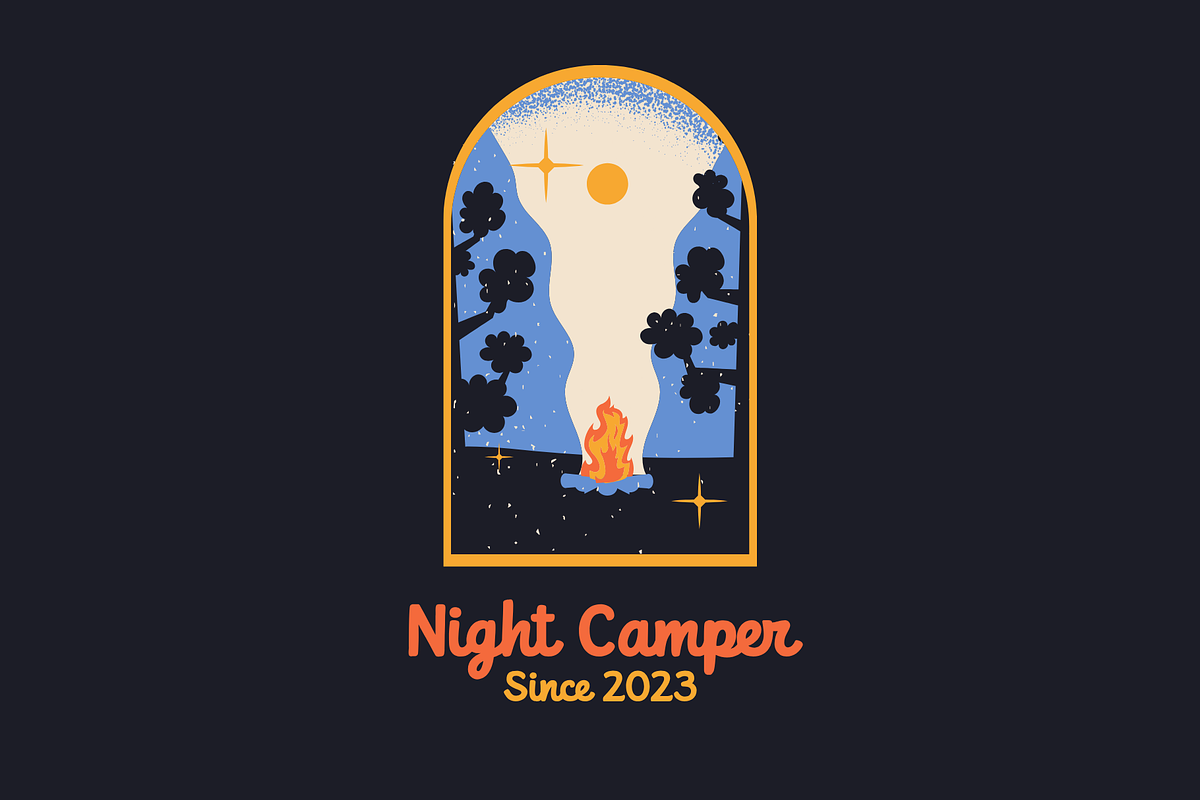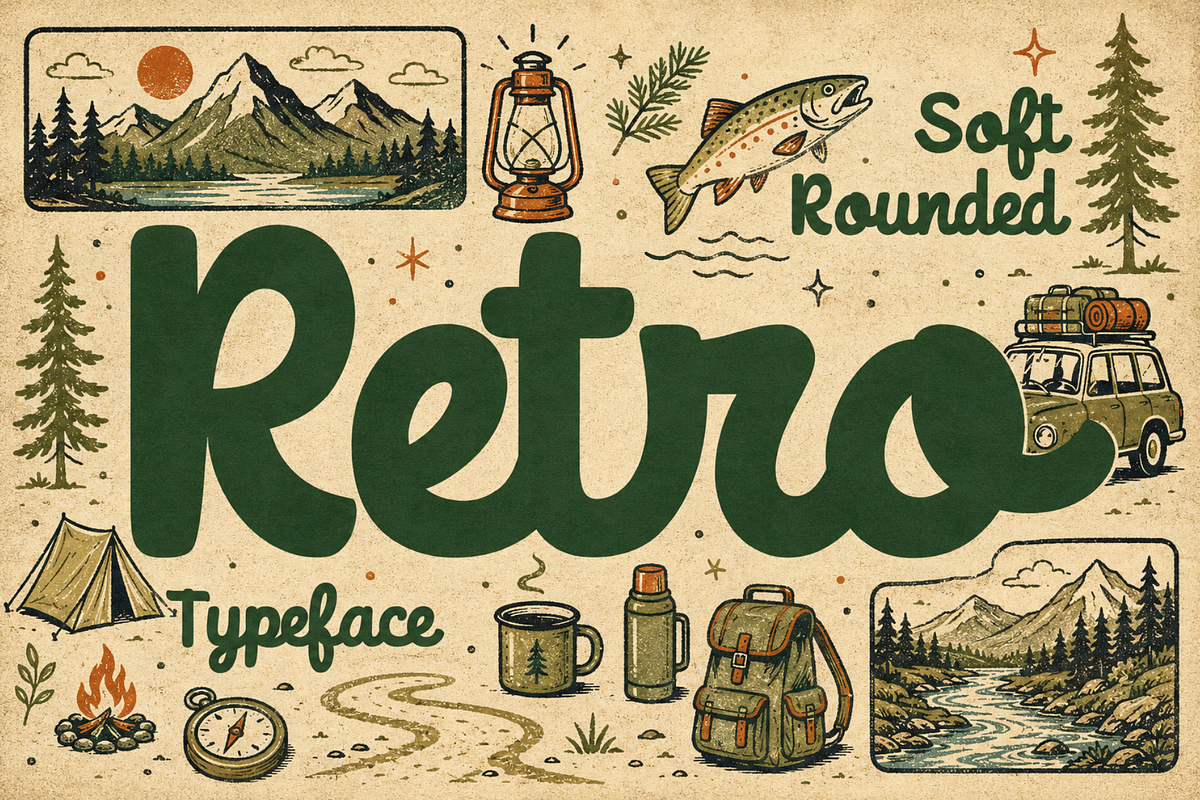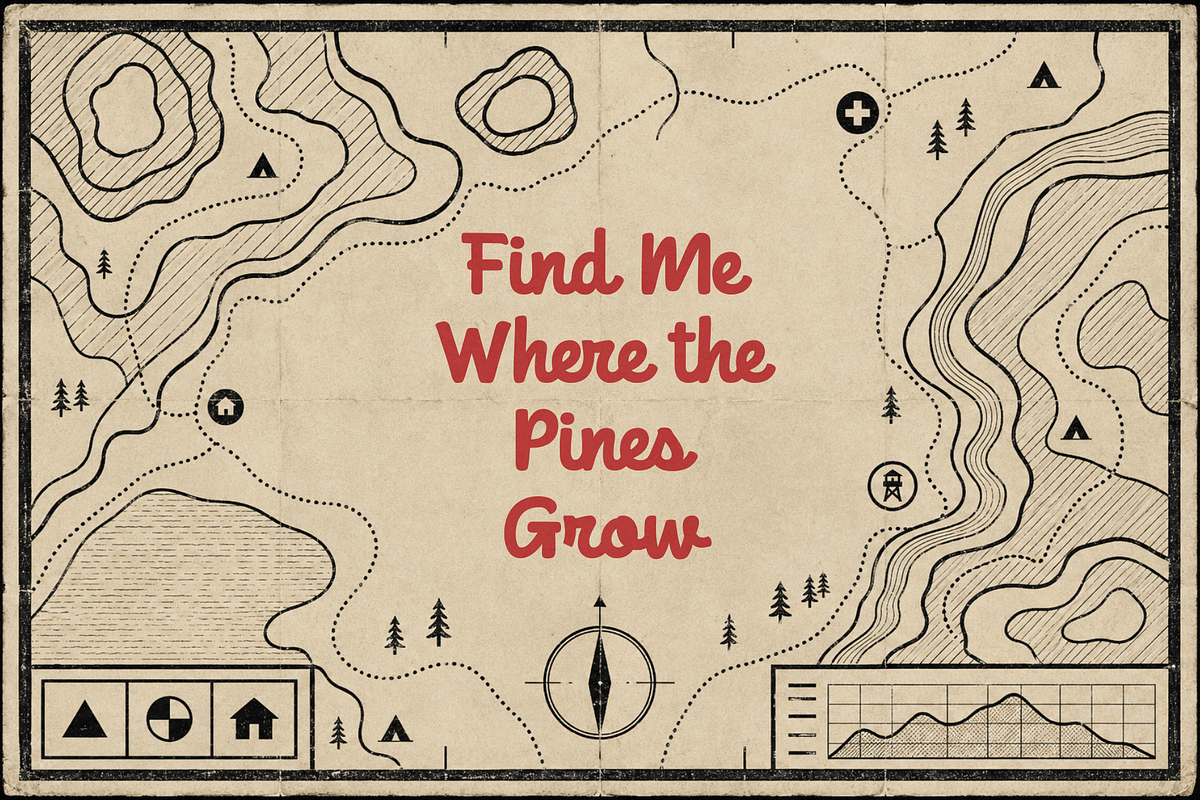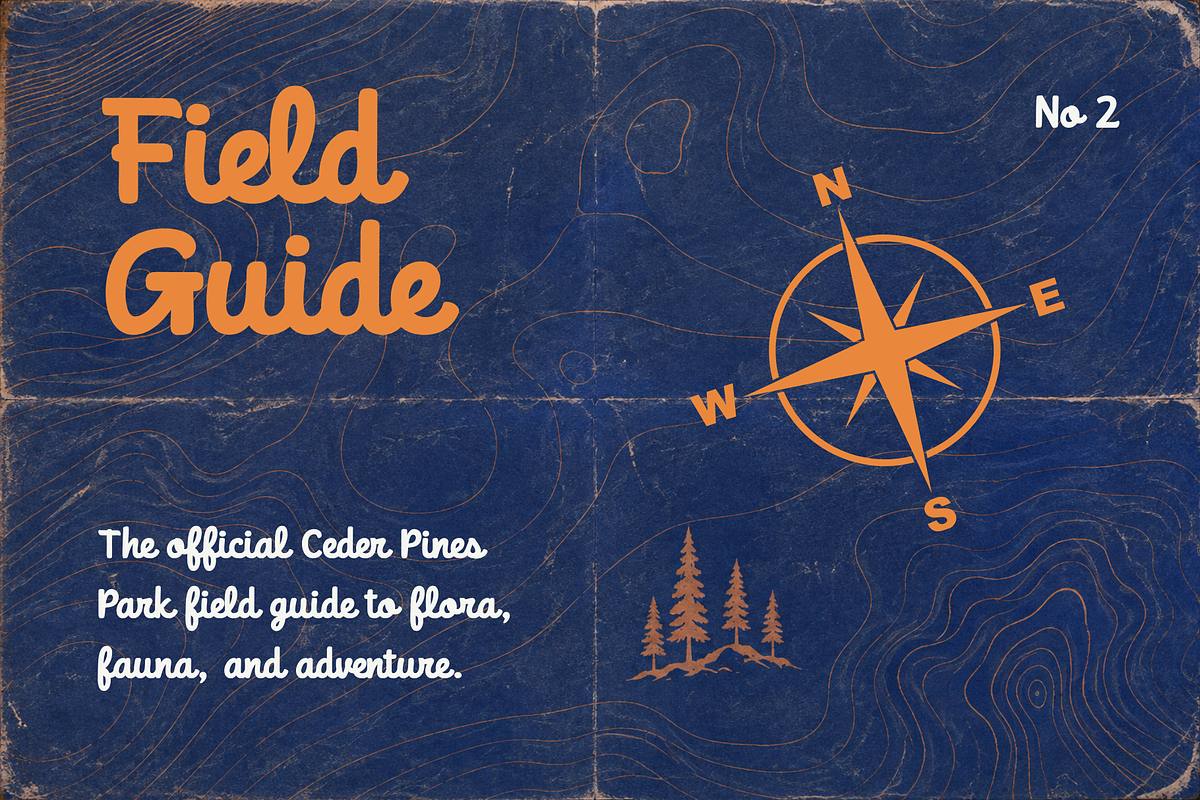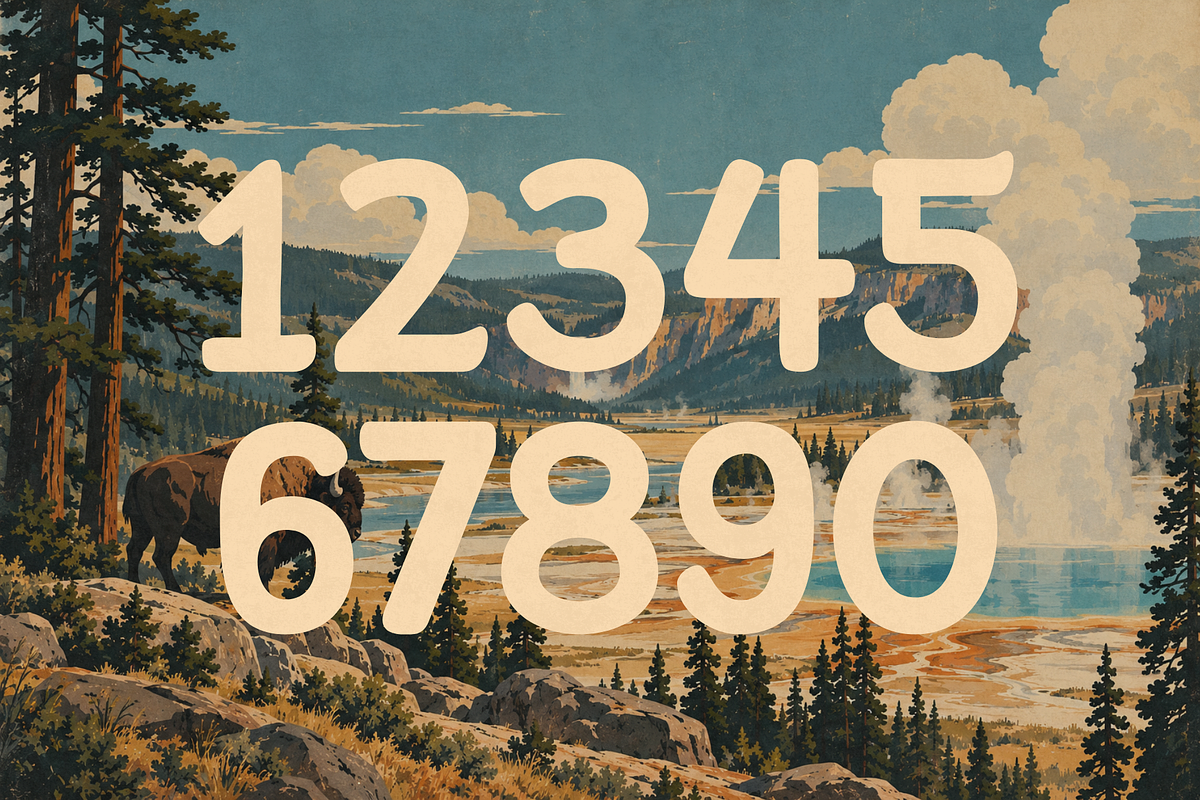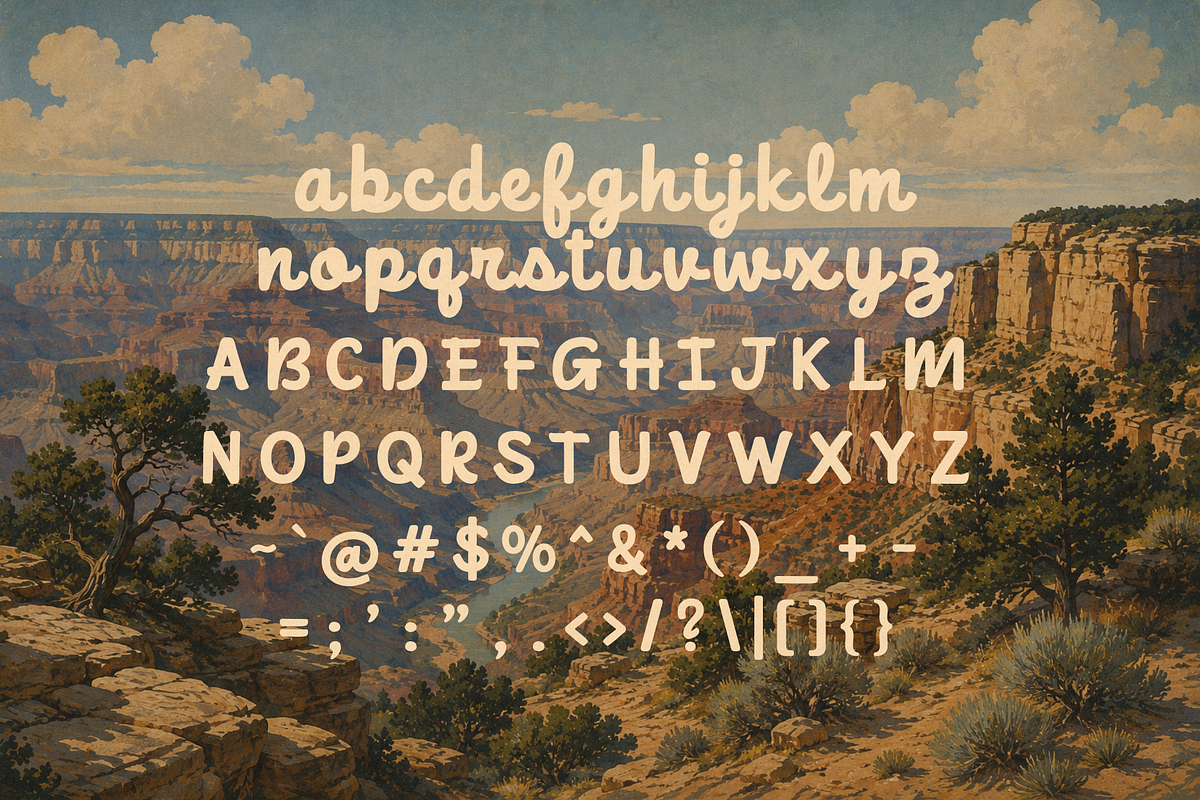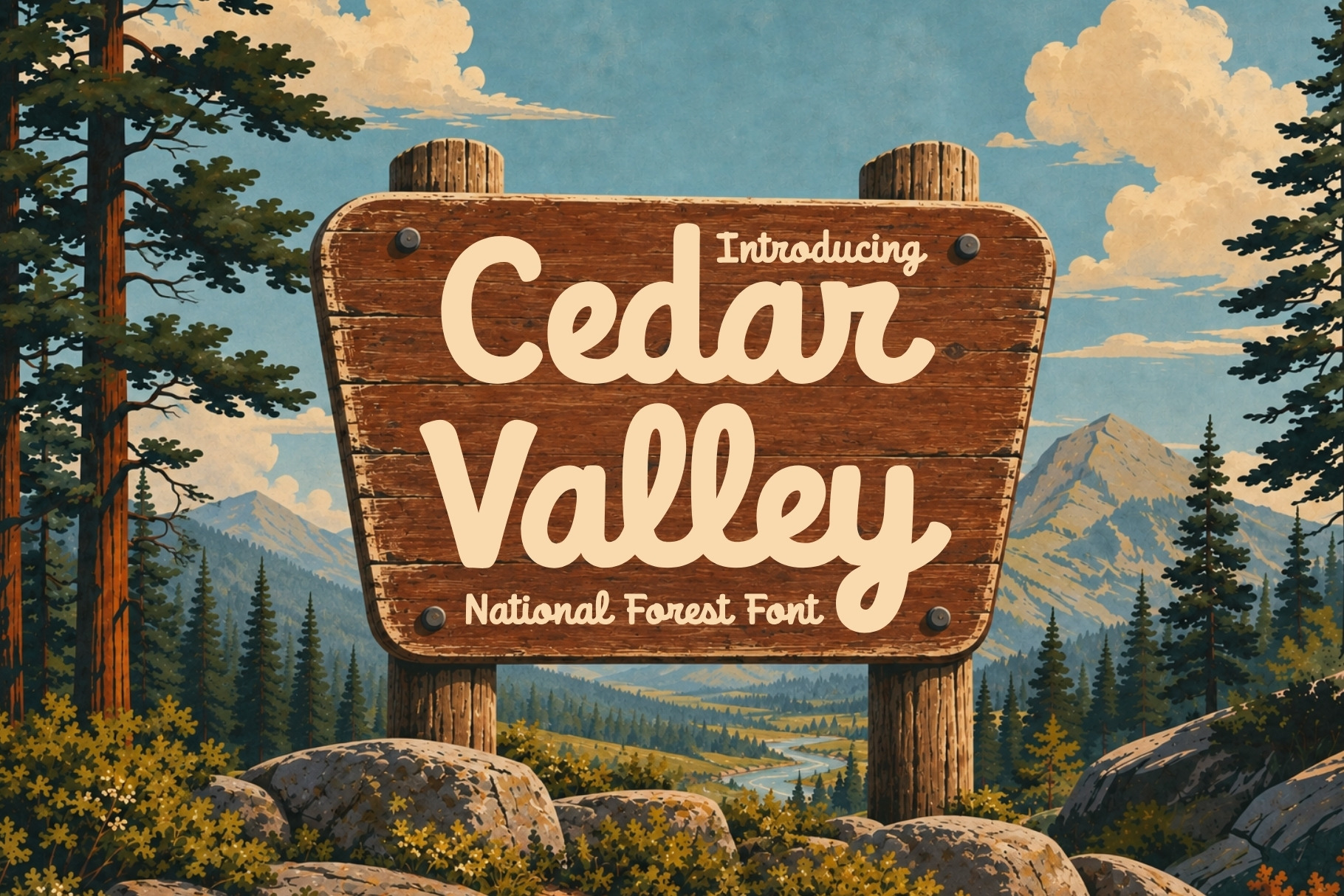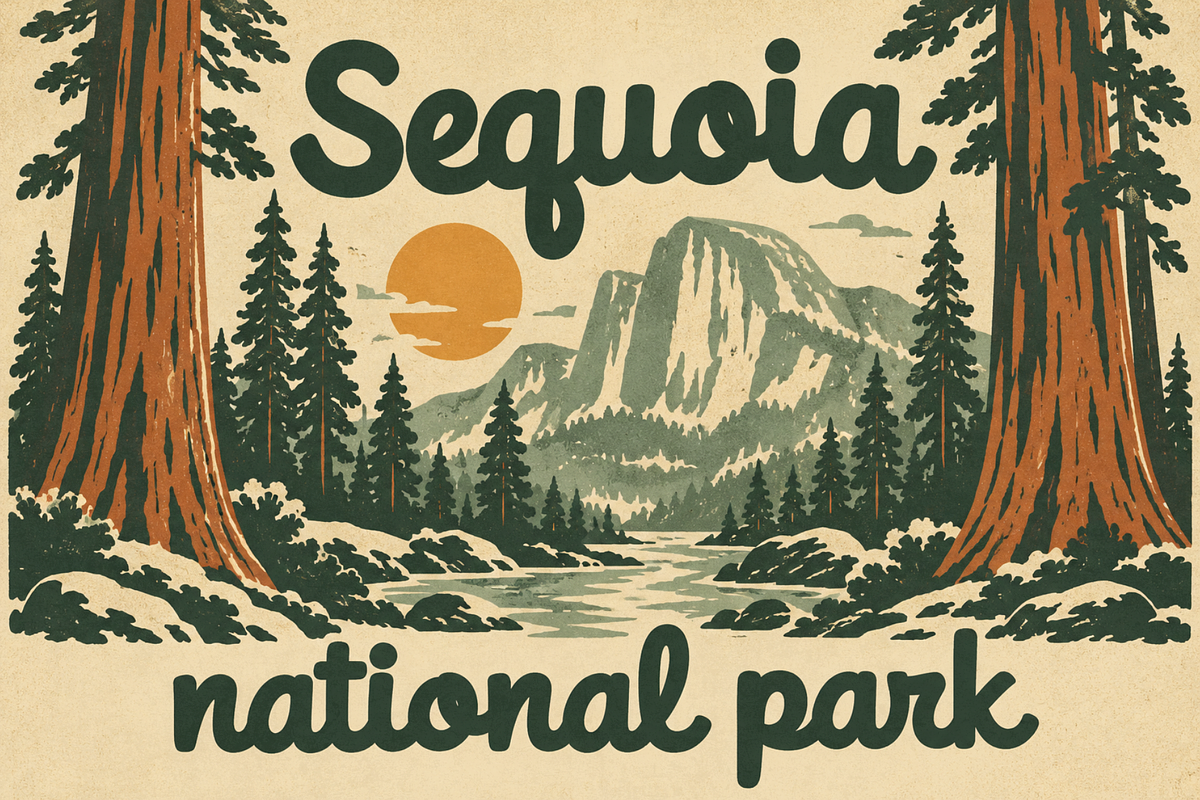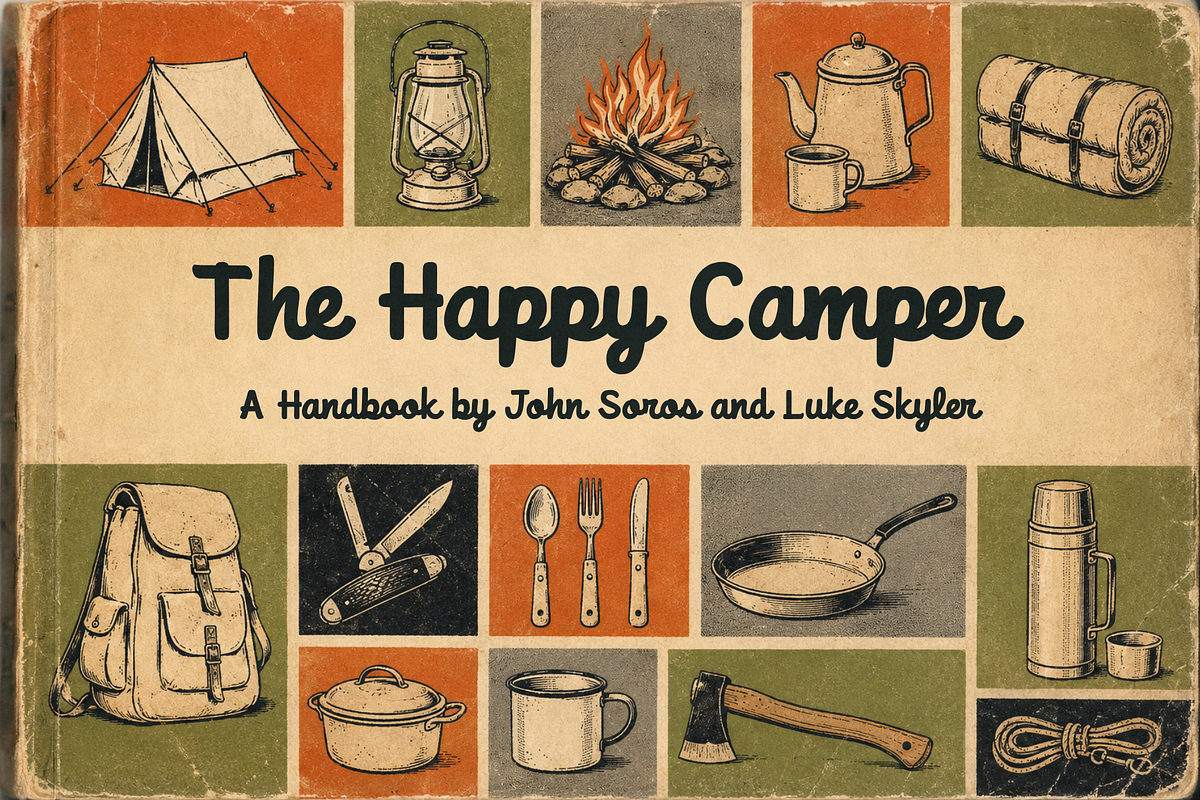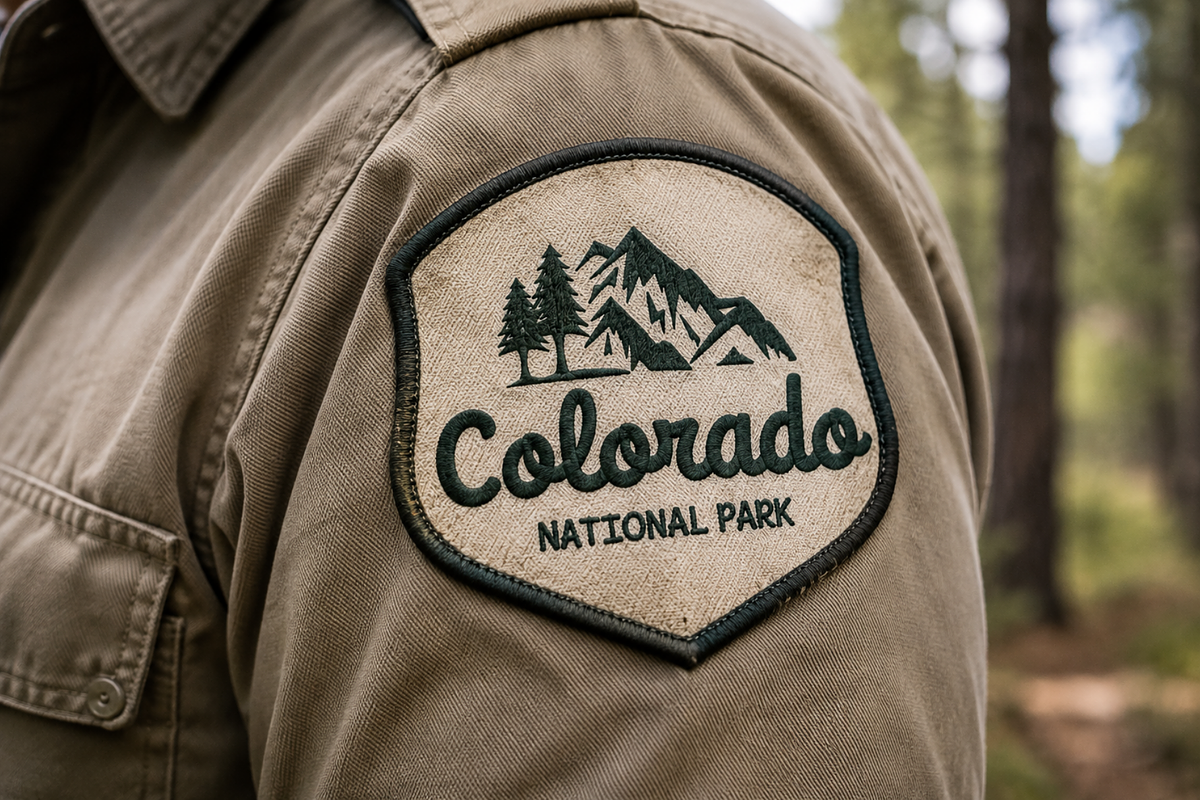
Cedar Valley - National Park Font
Meet Ceder Valley, a soft, rounded retro typeface inspired by the timeless signage of America’s national parks, forests, campgrounds, and scenic roadside destinations.
Designed to capture the nostalgic character of vintage National Park Service signs, Ceder Valley brings that familiar outdoorsy warmth into a versatile digital font. Its gently rounded shapes, quirky proportions, and subtle handmade imperfections give it an authentic retro personality that feels approachable, adventurous, and full of charm.
Rather than looking overly polished or mechanical, Ceder Valley embraces the character of old painted signs, trail markers, park maps, campground graphics, souvenir patches, and mid-century outdoor branding. The result is a typeface that instantly evokes memories of road trips, mountain lodges, forest cabins, campfires, postcards, and long summer days spent exploring the outdoors.
Ceder Valley is perfect for national park-inspired branding, camping graphics, outdoor apparel, travel posters, lodge logos, campground signs, stickers, patches, badges, packaging, postcards, adventure brands, merchandise, editorial layouts, and retro-inspired graphic design.
Its soft, friendly construction makes it especially effective for bold headlines and logos, while its nostalgic style pairs beautifully with illustrated landscapes, mountains, pine trees, vintage badges, wildlife artwork, and classic travel-poster aesthetics.
Whether you're designing a fictional national park identity, creating merchandise for an outdoor brand, or simply trying to give your typography the warmth of a weathered trail sign, Ceder Valley brings the spirit of the great outdoors into every letter.
Soft. Nostalgic. Outdoorsy. Made for adventure.